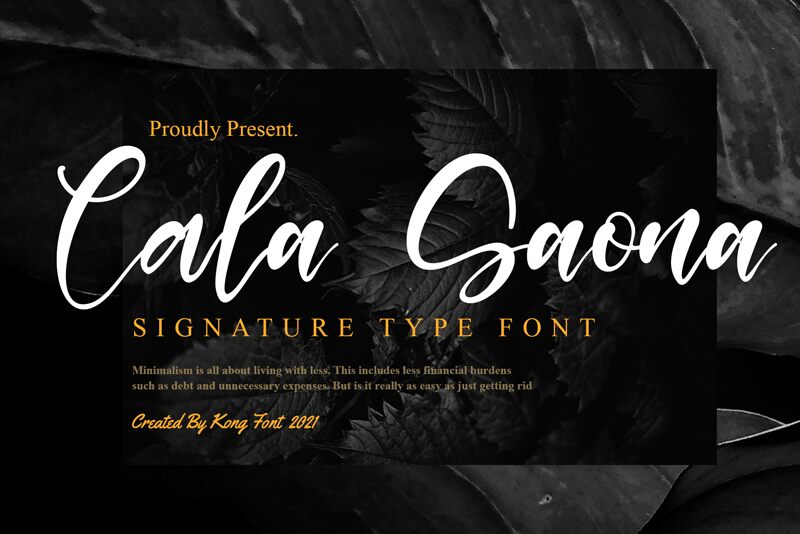
Cala Saona
Cala Saona, crafted by the talented Kong Font, is a mesmerizing signature script font. With its semi-light weight, this font exudes elegance and sophistication. Its fluid strokes and graceful curves make it perfect for projects such as wedding invitations, branding materials, fashion magazines, and luxury product packaging. Embodying a sense of refinement and charm, Cala Saona adds a touch of class to any design. Elevate your creations with this exquisite font that captures the essence of personalized beauty and timeless allure.